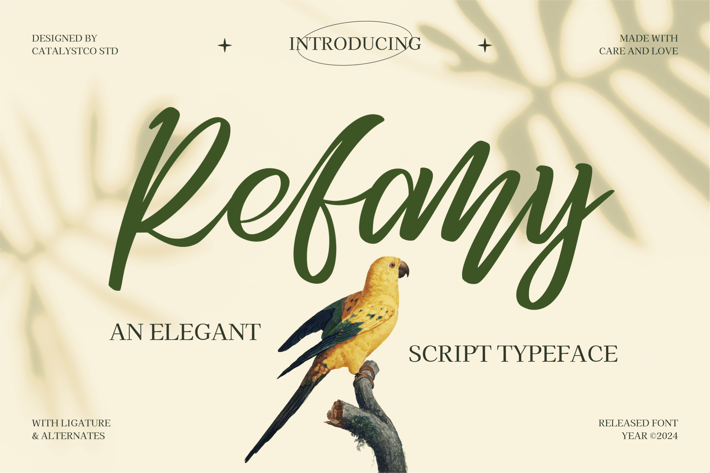
Refany Script Elegance Typeface
Refany Script Elegance Typeface typeface excellent used for the manufacture quote text, logotype, header magazine, and many more.
Ligatures & Alternate
Numeral & Punctuations